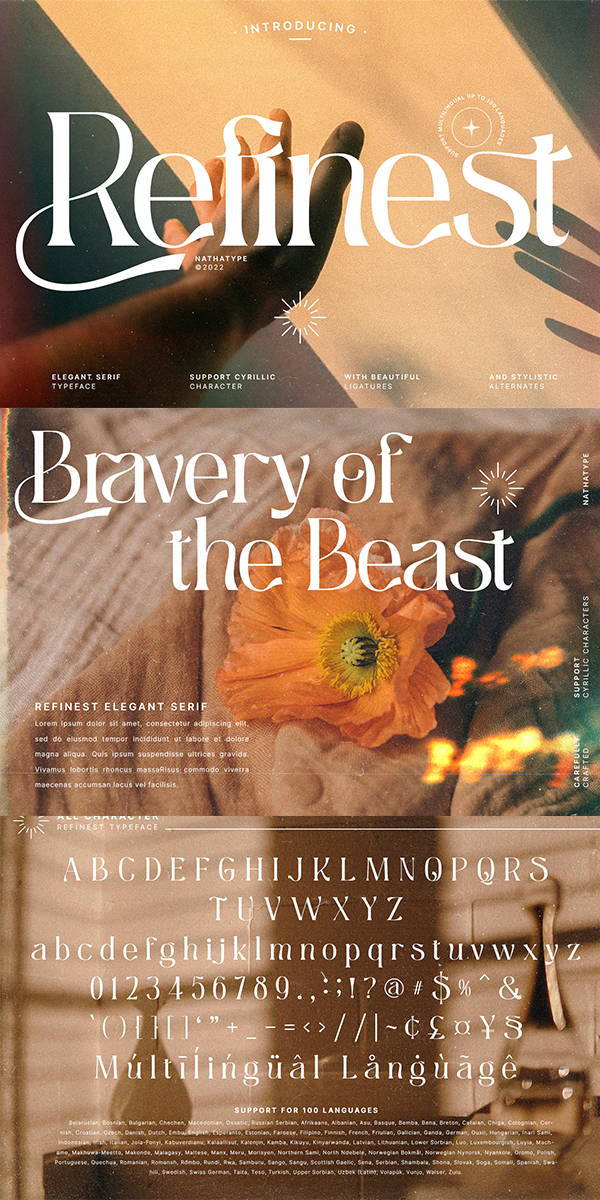
Refinest Font
About Refinest
Refinest also includes multilingual supports to make your brand reaching a global audience. It can be used for many design projects, such as, poster, logo or logotype, book cover or layout, branding, heading, printed product, merchandise, quotes, invitation, business card, social media campaign, UI/UX, etc. Get more inspiration about how to use it by seeing the font preview.
-Upper and lowercases